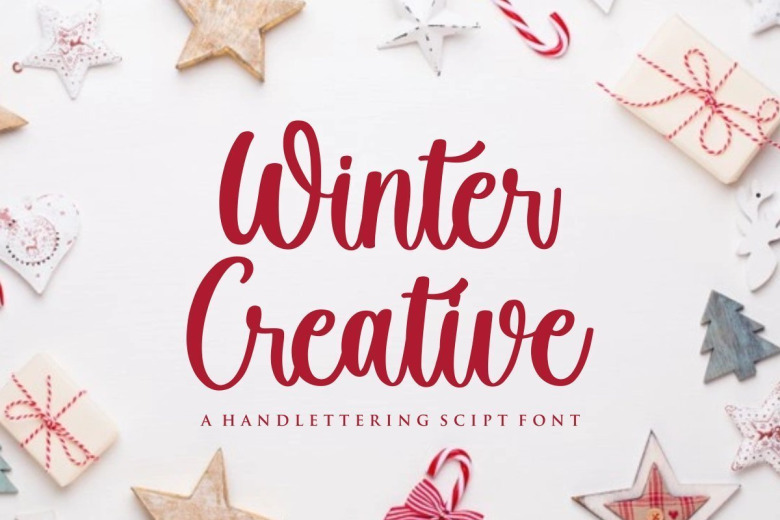
Winter Creative Handwritten Script Font
Winter Creative Script Font – is a modern handwritten typeface. This font is made in a modern style with a very beautiful beginning and ending. elegantly, very casual and suitable for your various design needs.
It’s Perfect for logo, branding, tittle, social media posts, advertisements, product packaging, product designs, label, photography, watermark, special event, magazine, web design, etc. This font is free for PERSONAL USE. Link to purchase full version and commercial license: HERE